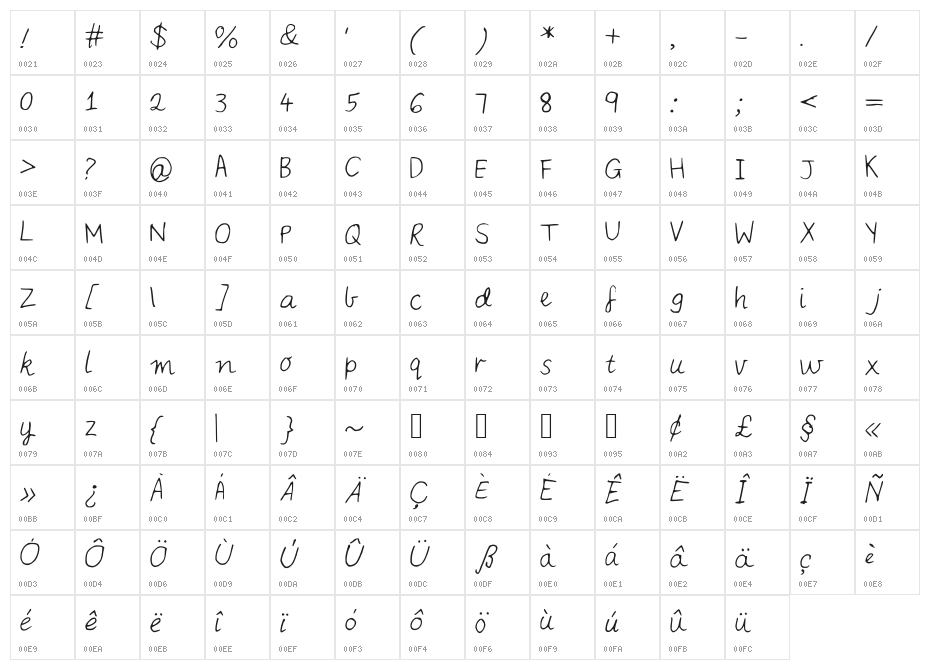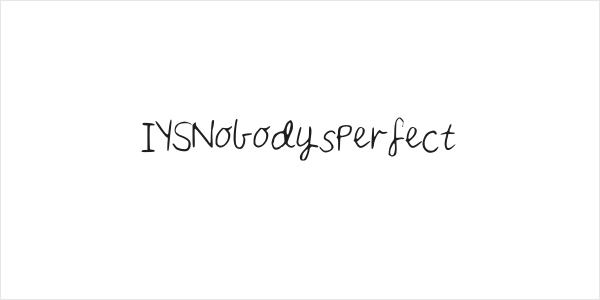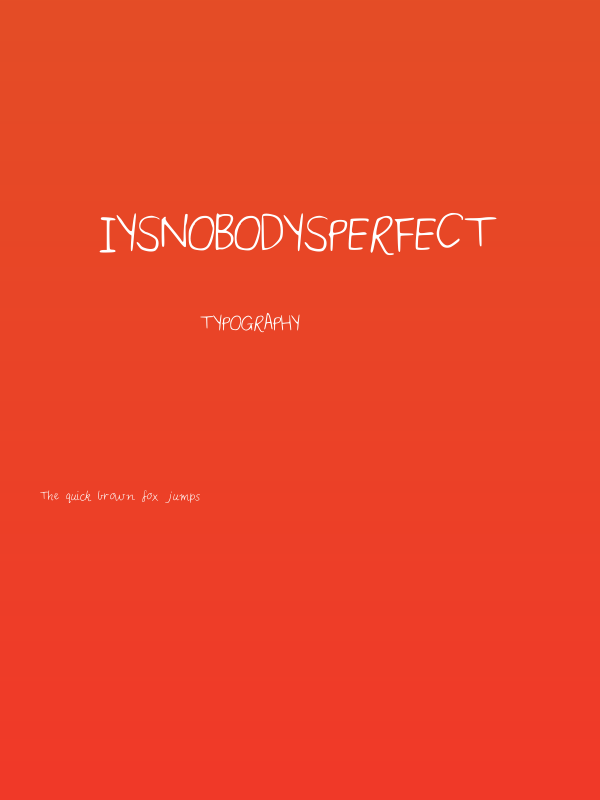
IYSNobodysPerfect Font
IYSNobodysPerfect Description
This font exudes a casual and friendly vibe with its handwritten style, characterized by smooth, flowing strokes that mimic natural handwriting. The letters are slightly slanted, adding to the informal and approachable feel. The uppercase and lowercase letters maintain a consistent style, with rounded edges and a playful touch. Numbers and special characters are designed to match the overall aesthetic, ensuring a cohesive look across all text elements. The font's organic appearance makes it ideal for projects that require a personal or human touch.
IYSNOBODYSPERFECT UPPERCASE
IYSNOBODYSPERFECT LOWERCASE
IYSNOBODYSPERFECT OTHER CHARS
| Use Case | Logos, Headlines, Informal text |
| Proposed Projects | Ideal for personal invitations, greeting cards, casual branding, and social media graphics. |